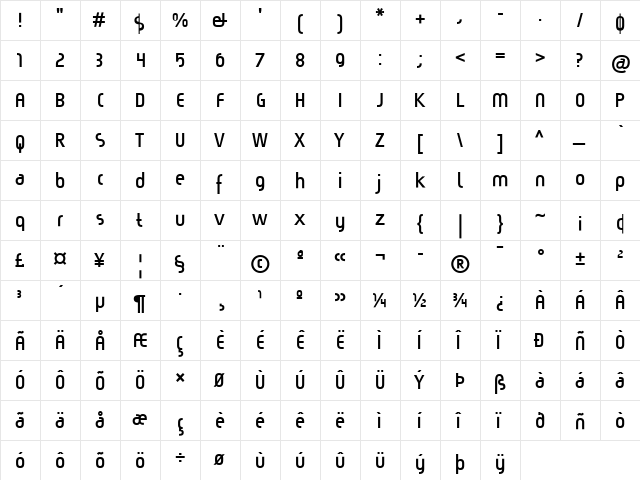
Jocelyn Bold Font Preview
Jocelyn Bold
Jocelyn Bold Font Details
| Foundry | C) Johannes Birkenbach * |
Design Context for Jocelyn Typeface
Jocelyn takes a measured approach to typography — its balanced proportions and neutral character make it a reliable workhorse for both digital and print work. Its bold stroke weight gives it real presence on the page.